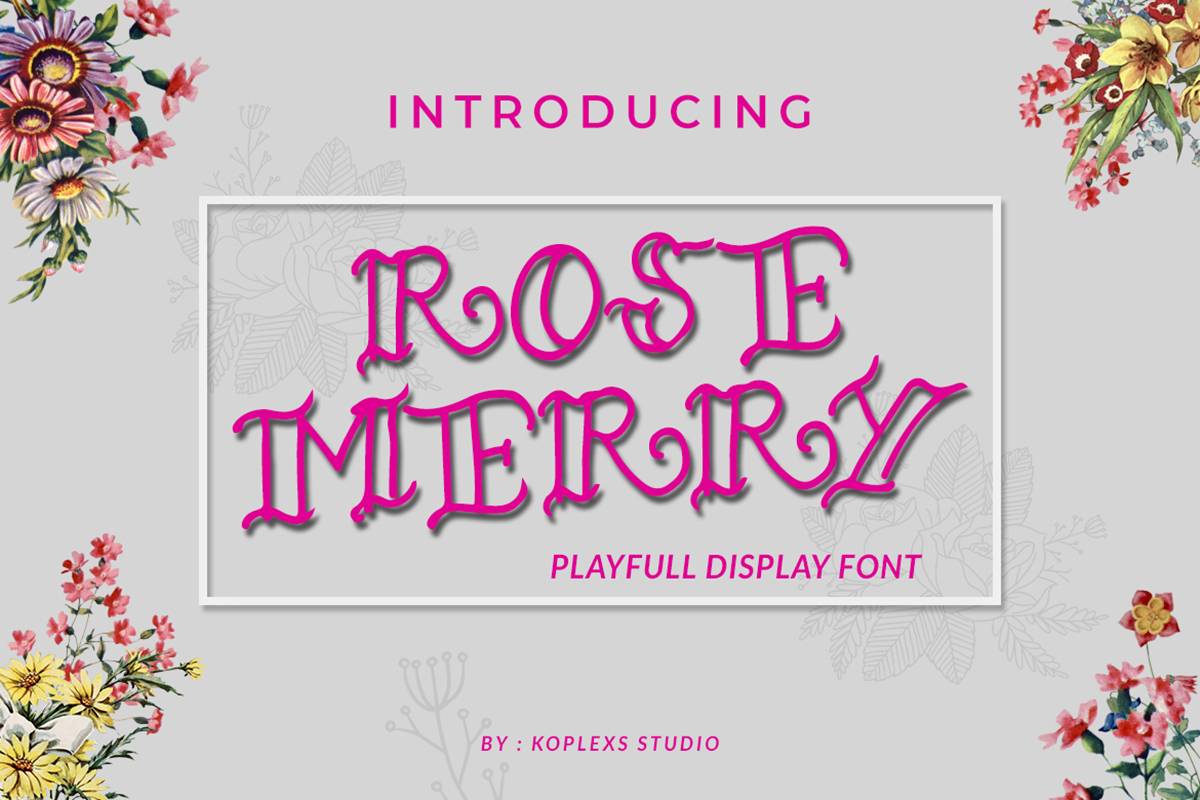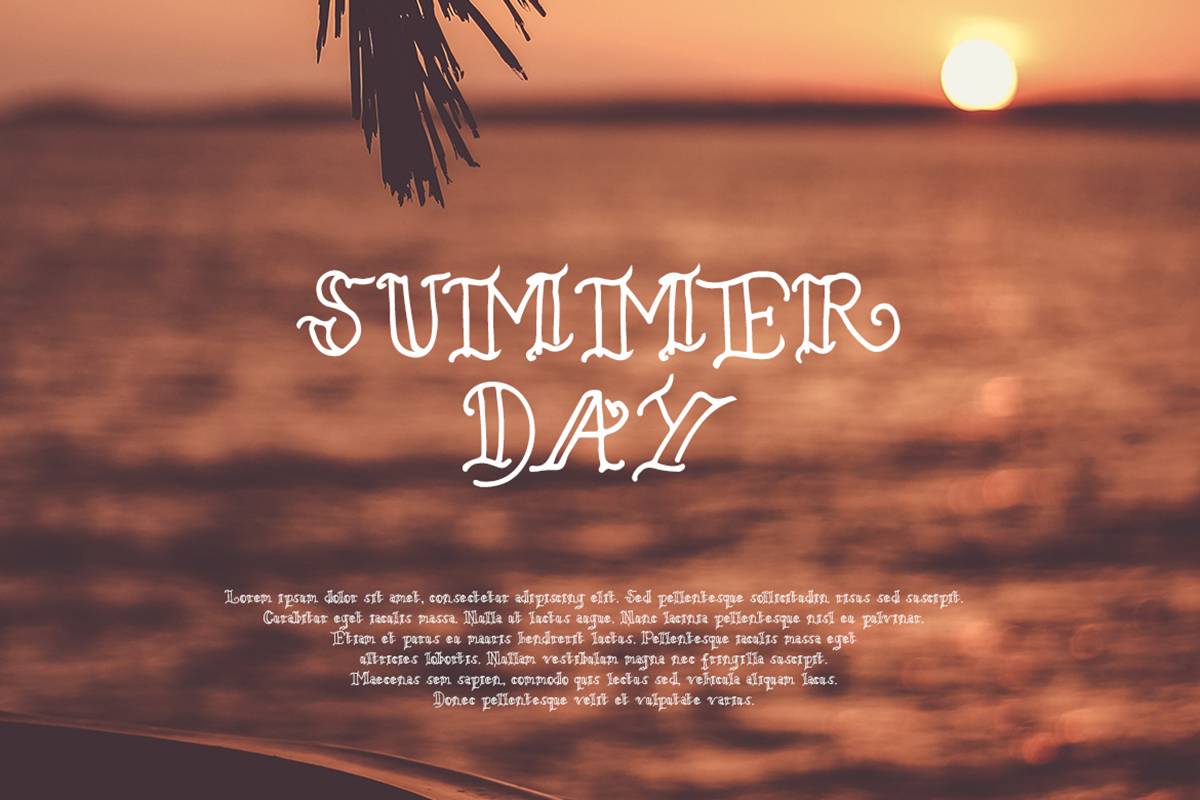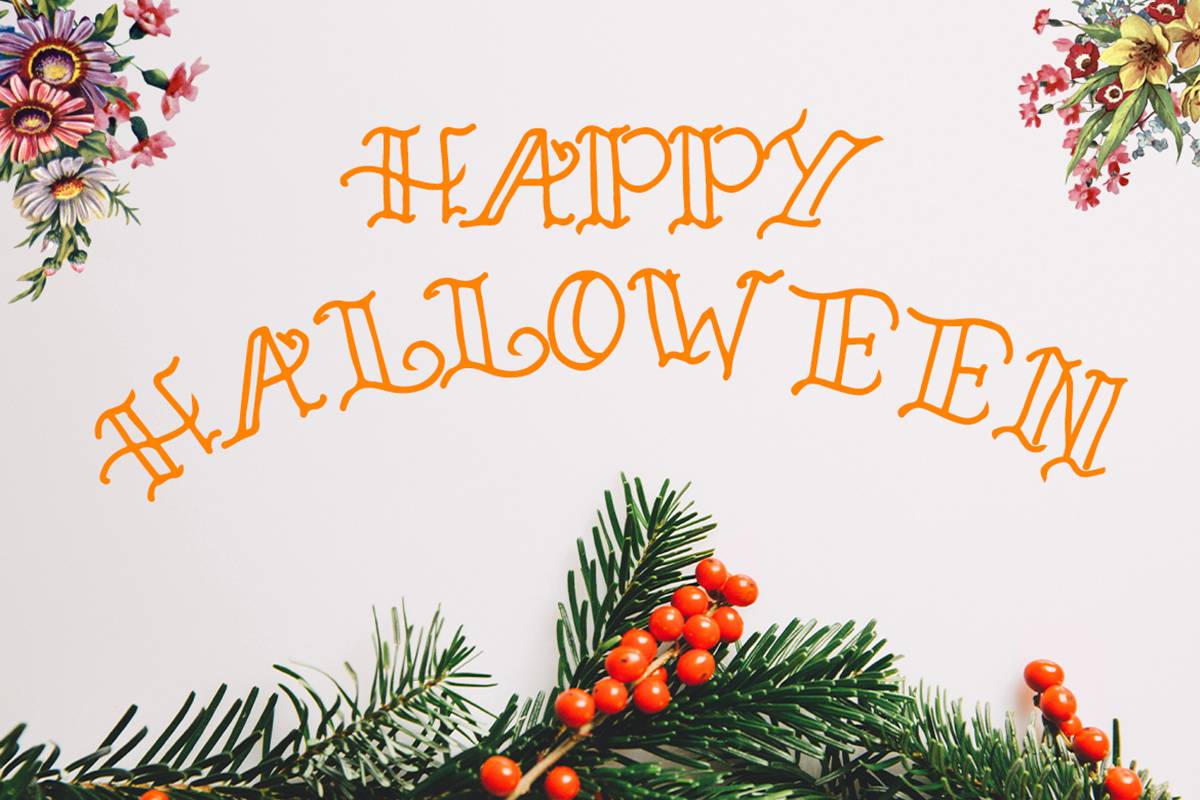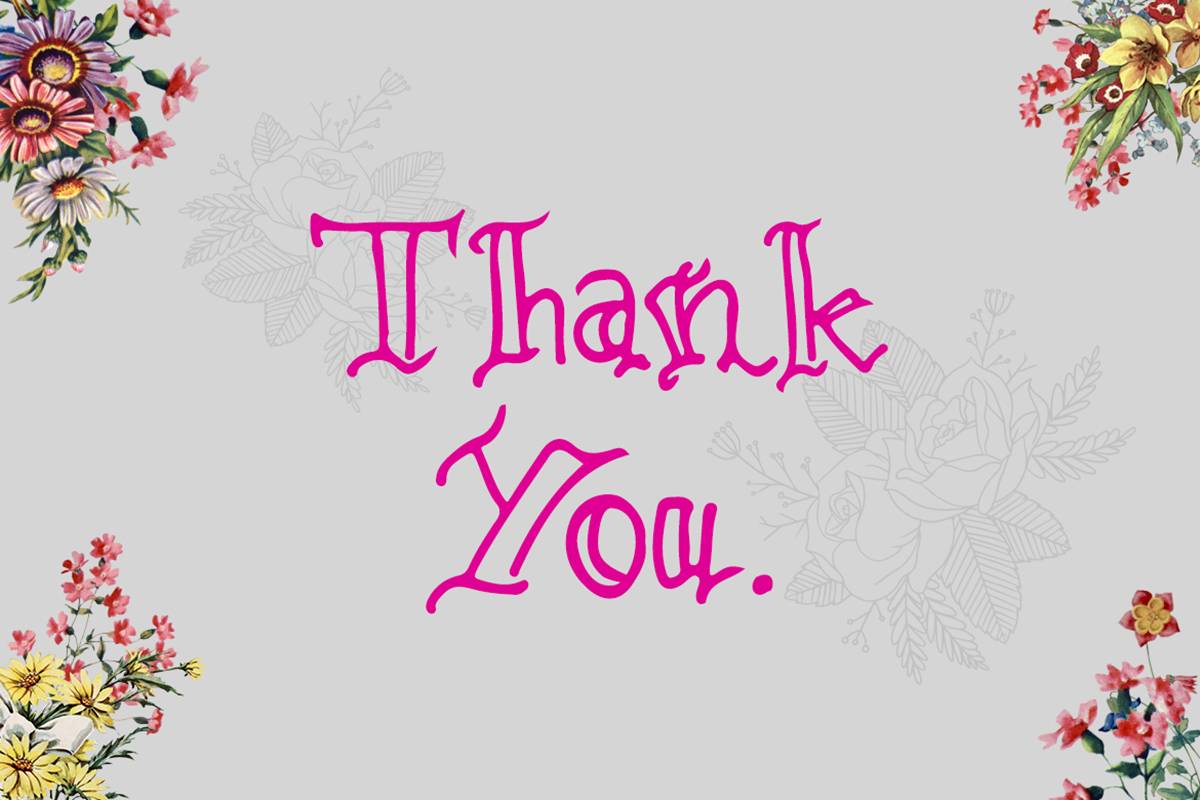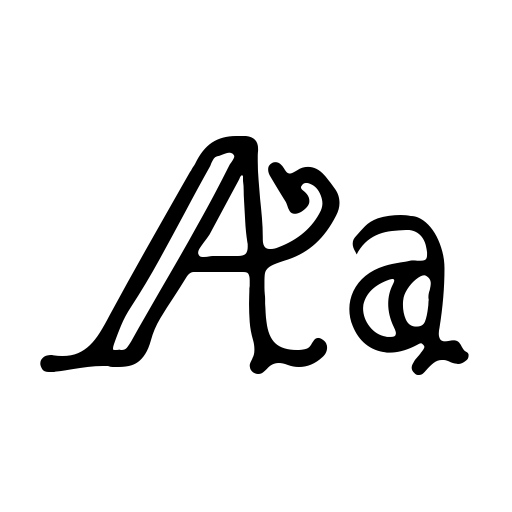
Rose Merry Font is a decorative serif typeface with an ornate, whimsical style characterized by delicate, bracketted serifs and elegant swashes that add a playful yet vintage touch. Its medium weight and moderate contrast combined with quirky, single-story letterforms make it ideal for creative headlines, invitations, and branding that seeks a unique, artistic flair. This font works well in projects that want to convey charm and individuality, particularly in fashion, packaging, or editorial designs with a handcrafted feel.
Rose Merry Font
About Rose Merry Font
| Font family | Rose Merry Font |
| Designer | Uus & Muslimin |